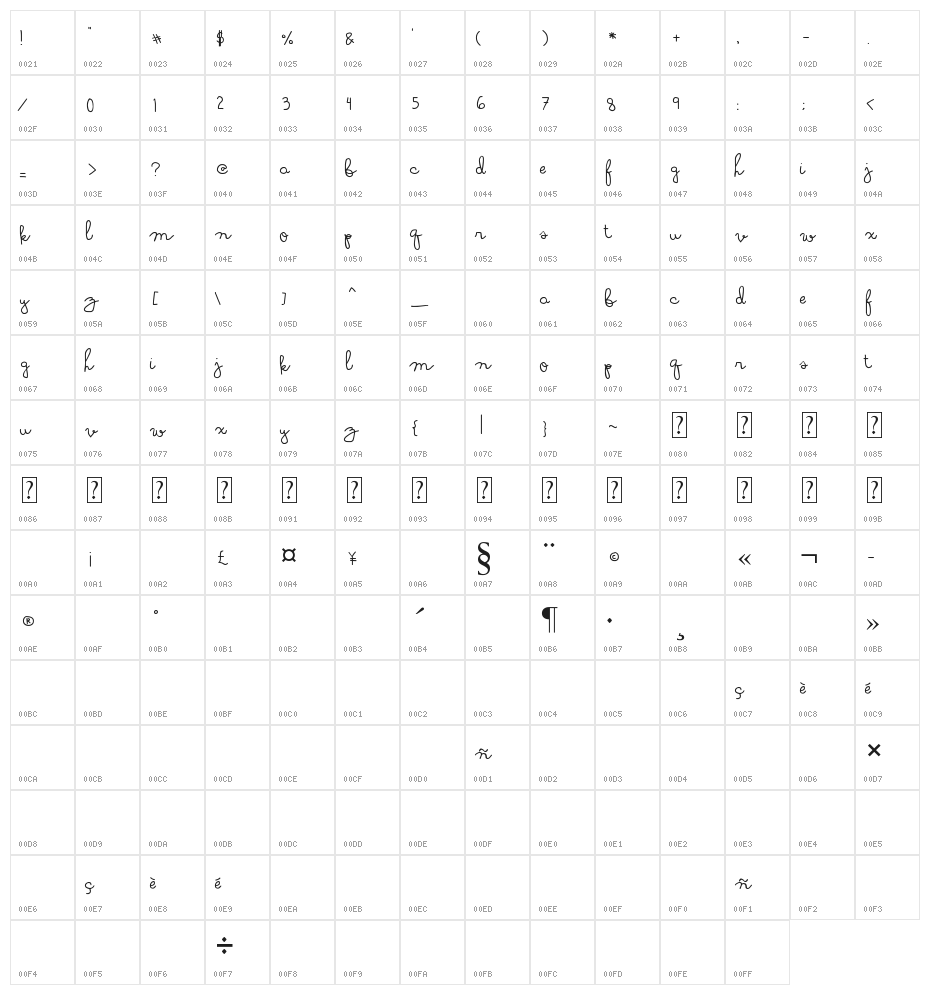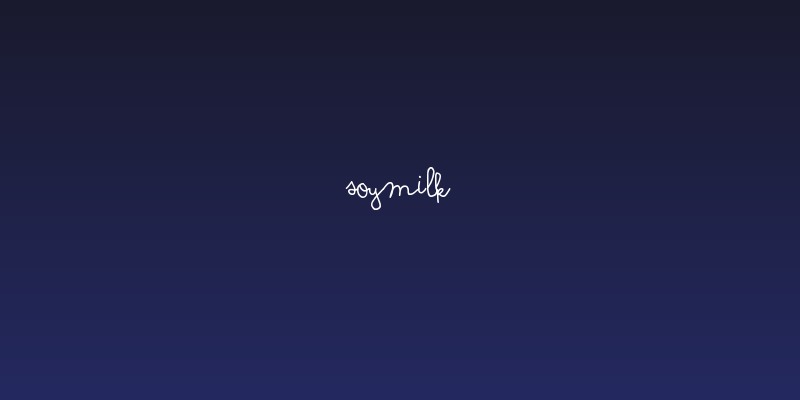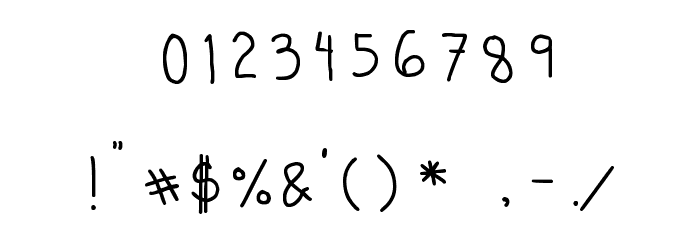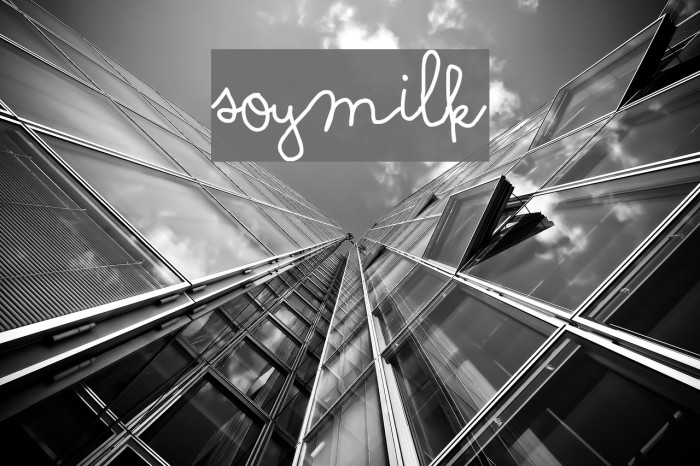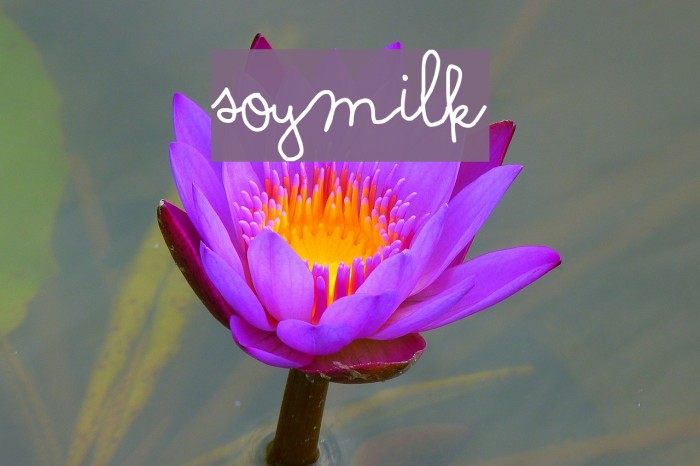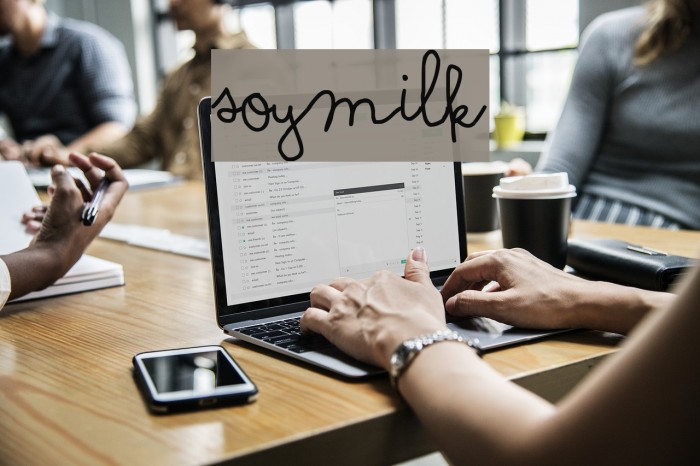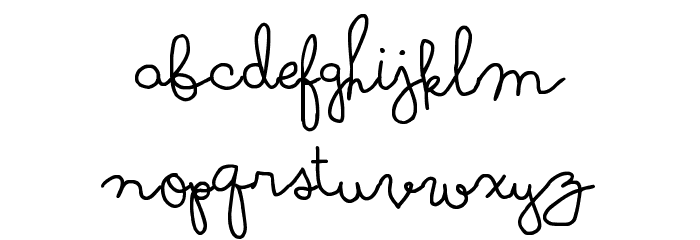
Soymilk Font
This font features a playful and whimsical handwritten style, characterized by its flowing, cursive-like strokes. Each letter connects seamlessly to the next, creating a continuous and fluid appearance. The characters are slightly rounded, giving them a friendly and approachable feel. The font maintains a consistent line thickness throughout, contributing to its casual and informal aesthetic. It includes a full set of lowercase letters, numbers, and a variety of special characters, making it versatile for different uses. The overall look is charming and personal, ideal for projects that require a touch of personality and warmth.
| Use Case | Logos, Invitations, Social Media |
| Proposed Projects | Ideal for greeting cards, invitations, personal branding, and social media graphics. |